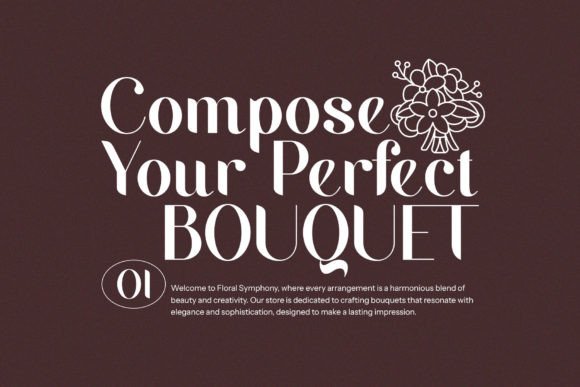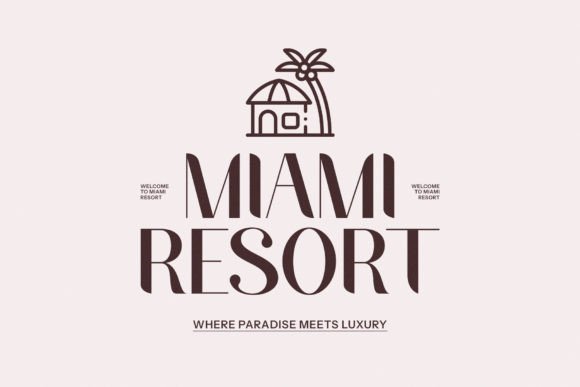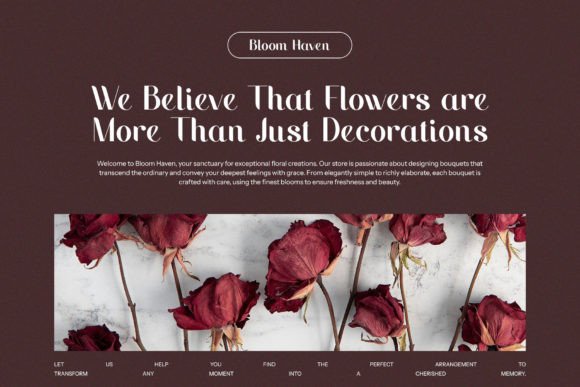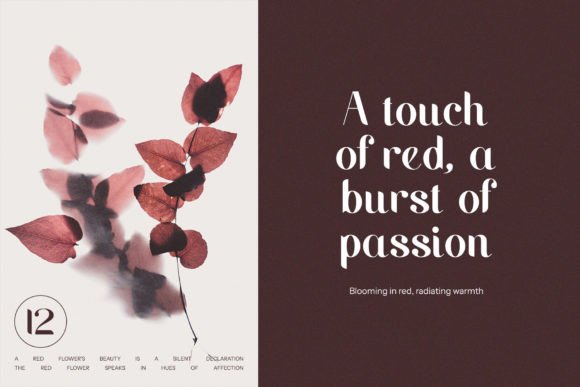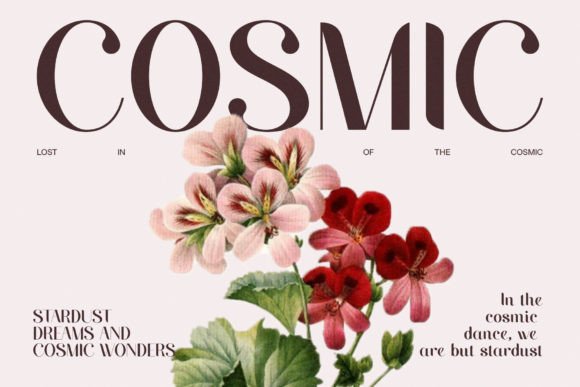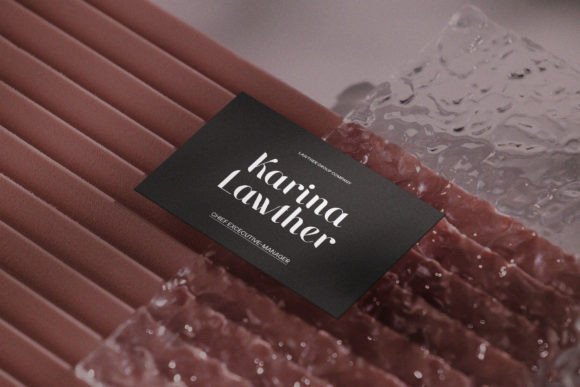
Introduction to Kyske Font
Kyske is a sophisticated ligature serif from us.
This typeface has been made carefully to make sure it has premium quality and a luxury feel The ligatures make this typeface unique and stand out rather than the regular serif font.